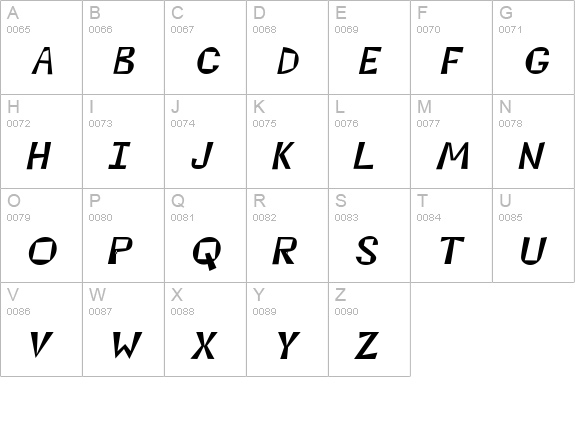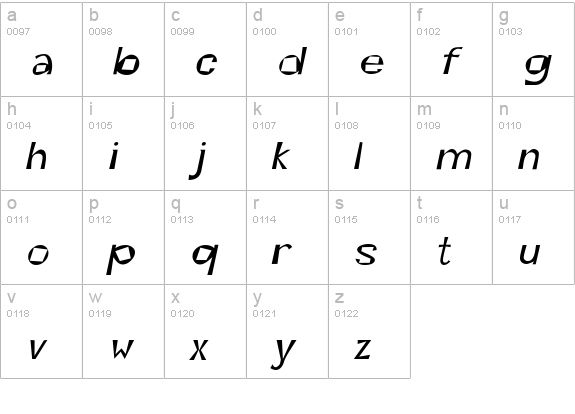
Kwirky Italic Font Details
Kwirky Italic is a distinctive, italic variant in the Kwirky typeface family \xE2\x80\x94 well suited to design and typography projects.
Introducing Kwirky Italic font - a playful and dynamic typeface perfect for adding a touch of whimsy to your designs. Its unique slanted letters and quirky shapes exude a sense of creativity and fun, making it a standout choice for projects that need a bit of personality. This italic font is not only visually appealing but also versatile, suitable for a wide range of design applications such as branding, posters, invitations, and more. Whether you're looking to make a bold statement or add a touch of charm, Kwirky Italic font has got you covered. Best of all, Kwirky Italic font is available for free download at FontsMarket.com. So why wait? Add this delightful font to your collection today and let your creativity shine with Kwirky Italic!